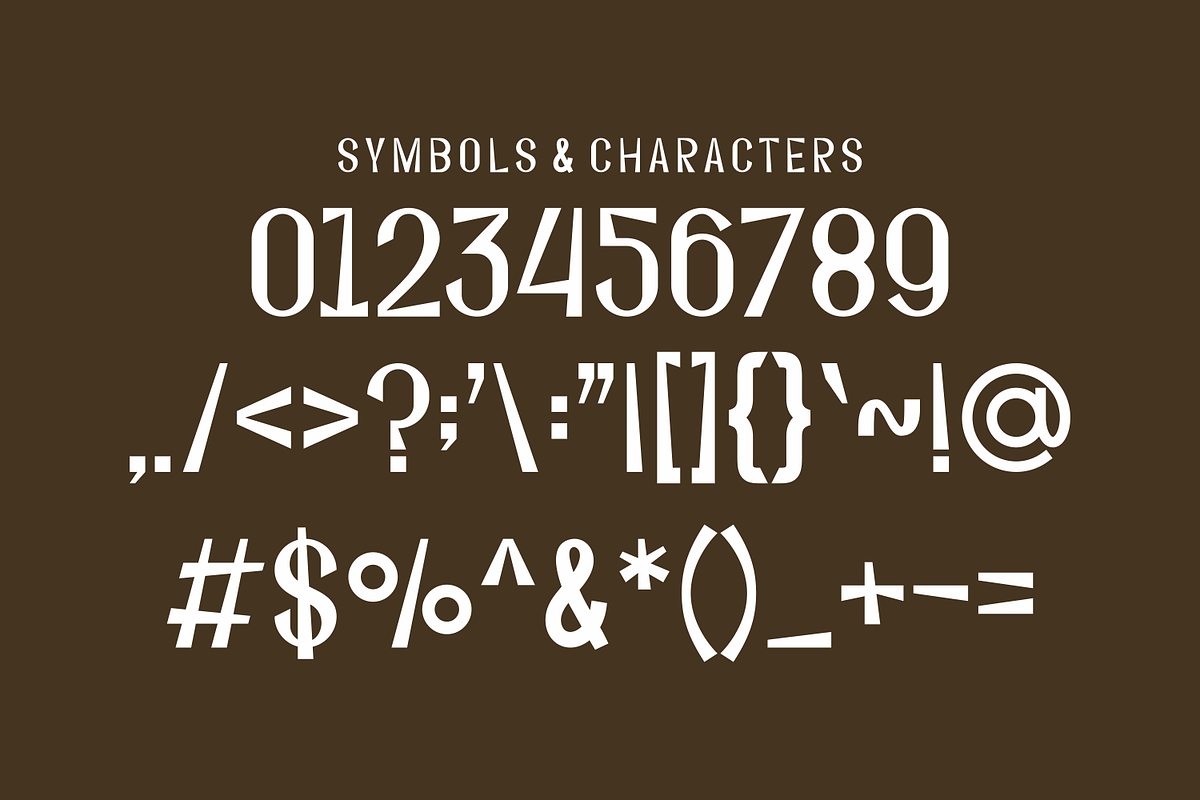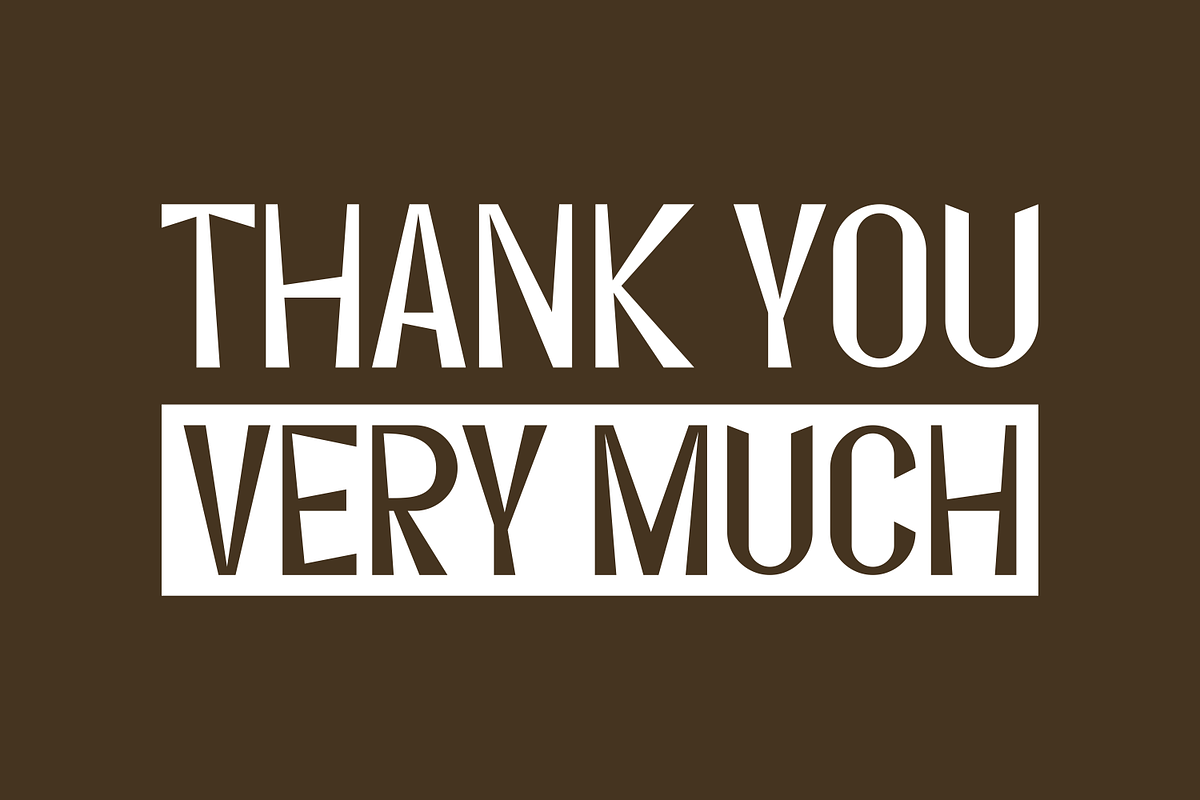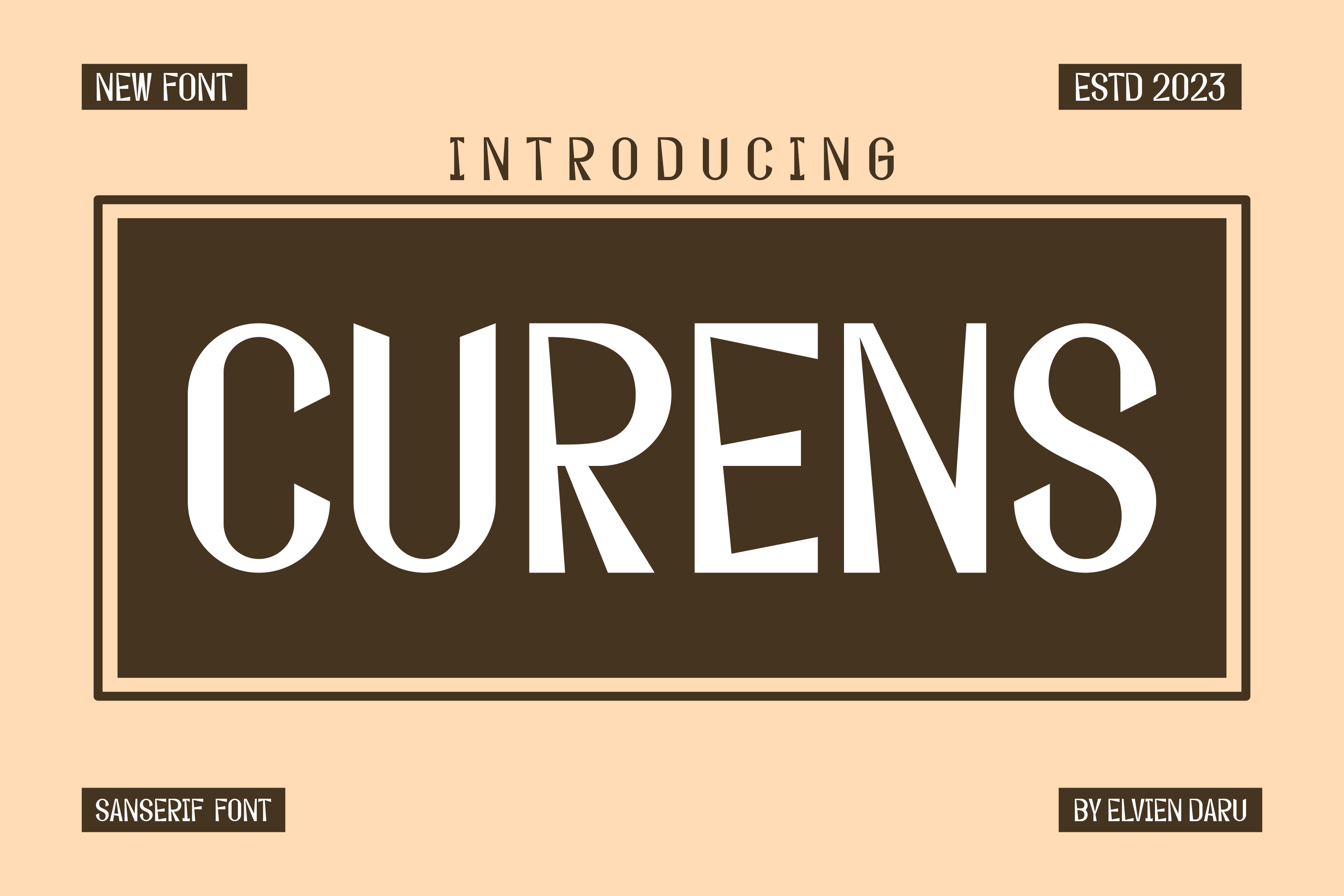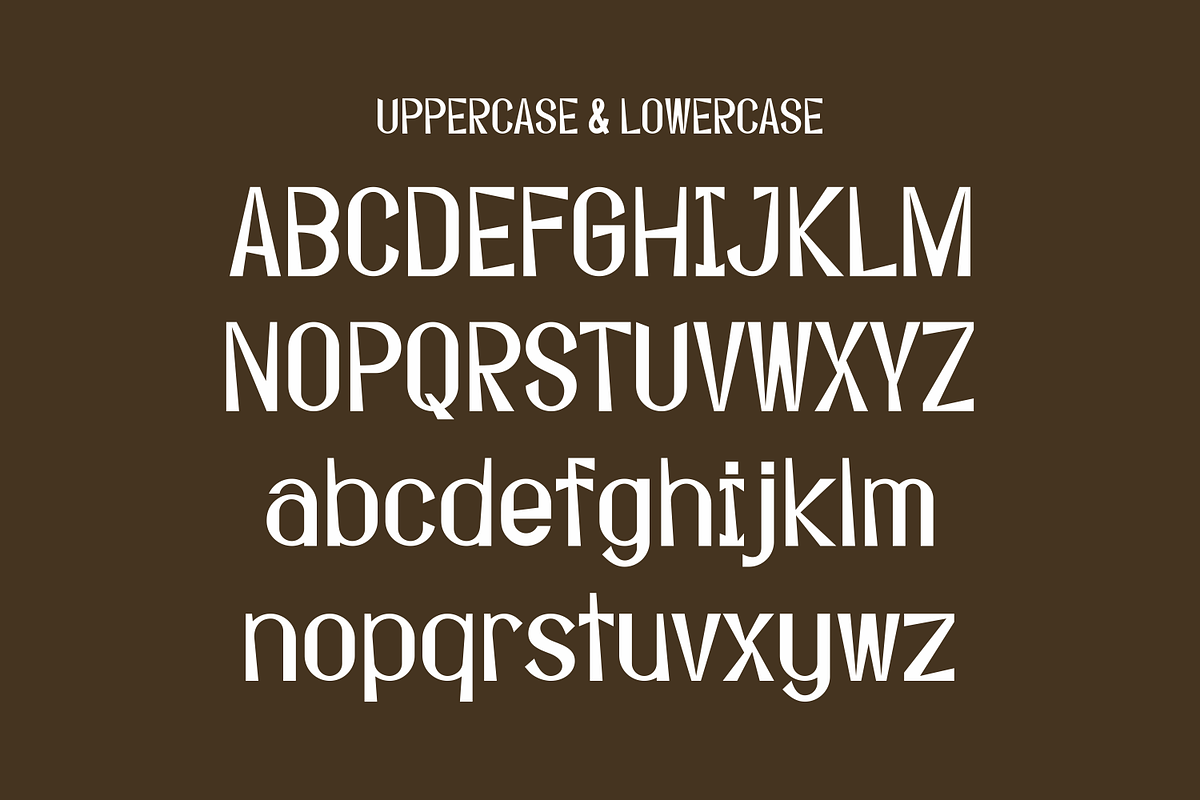
Curens - Elegant Serif Font
Curens - Elegant Serif Font Perfectly suited on print/screen. it’s perfect for Branding, name card, poster, logo, magazine, cover, banner, t-shirt and headers, or even large-scale artwork.